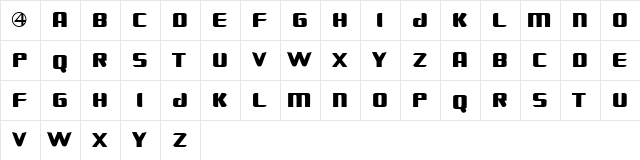
FANTASTIC FOUR MOVIE Regular
| Foundry | P. A. Vannucci |
| Designer | P. A. Vannucci |
Design Context for FANTASTIC FOUR MOVIE Typeface
FANTASTIC FOUR MOVIE is a composed and adaptable typeface that performs quietly and consistently across a wide range of design contexts.